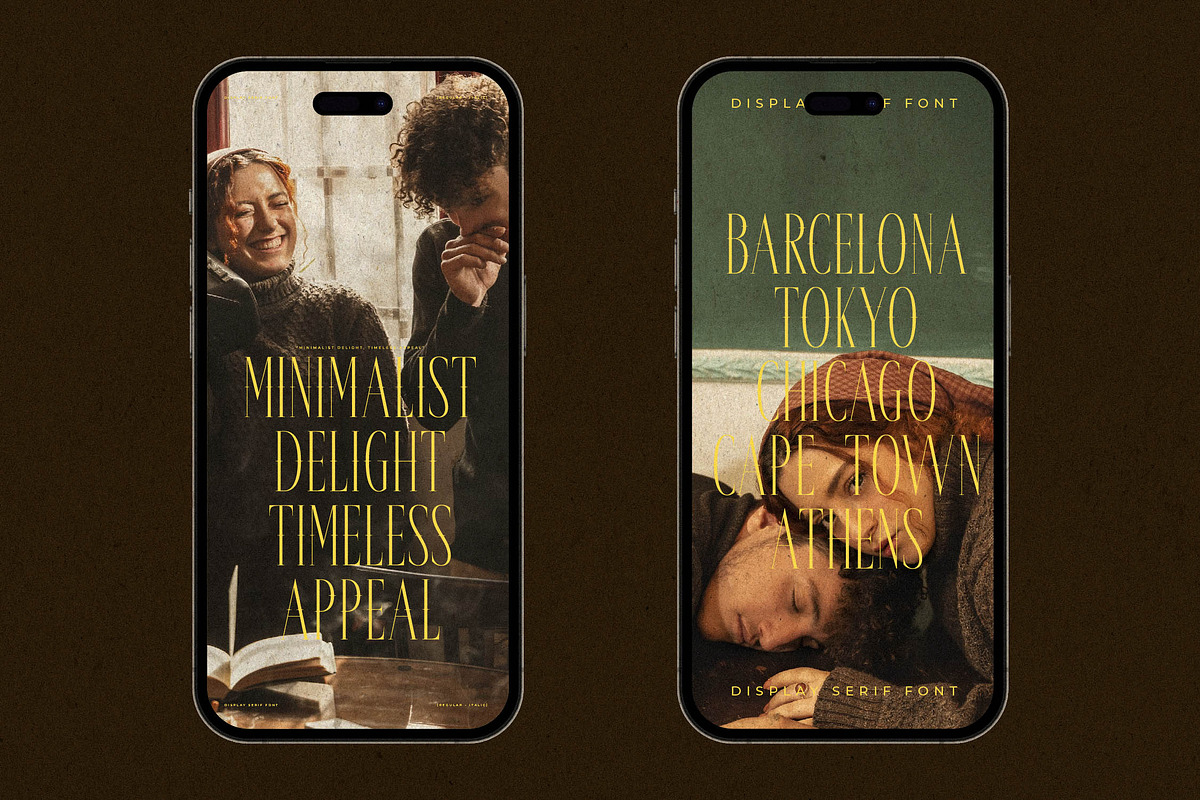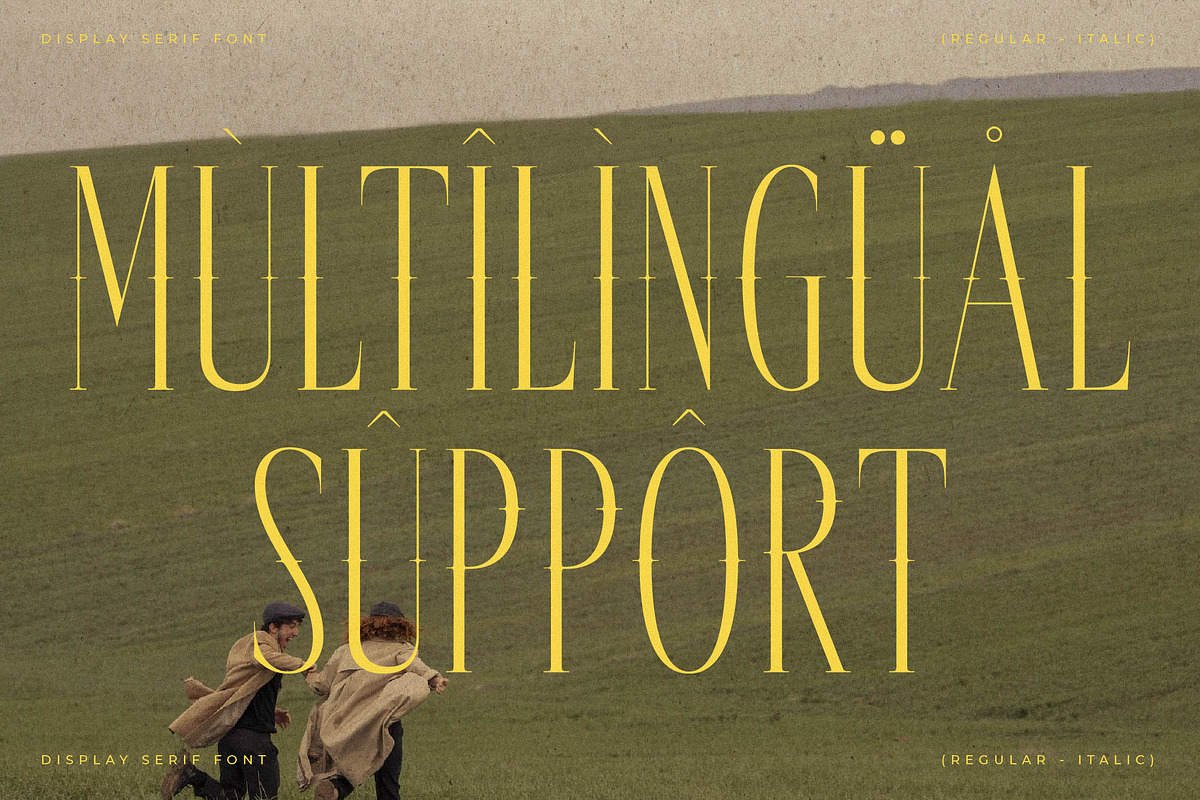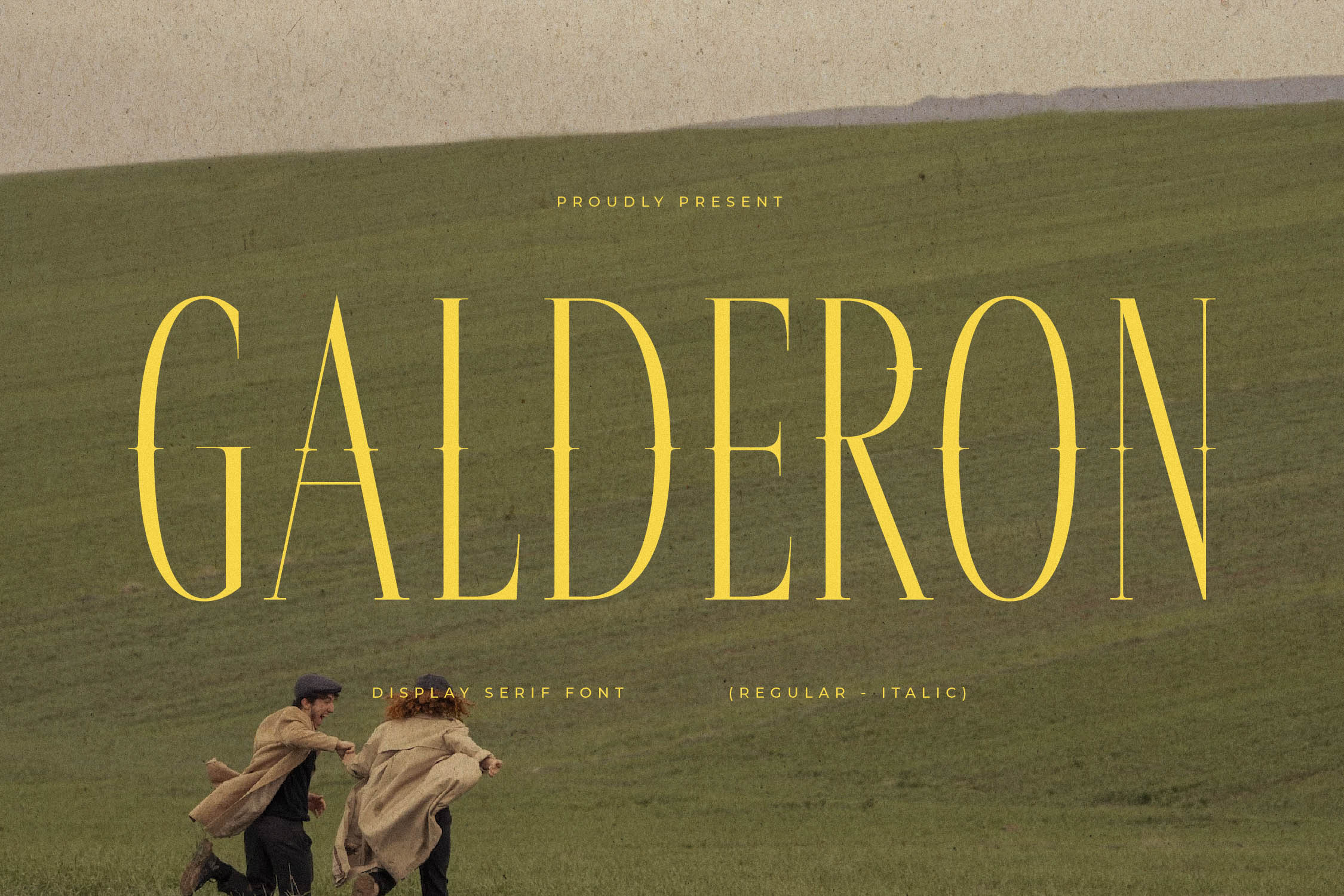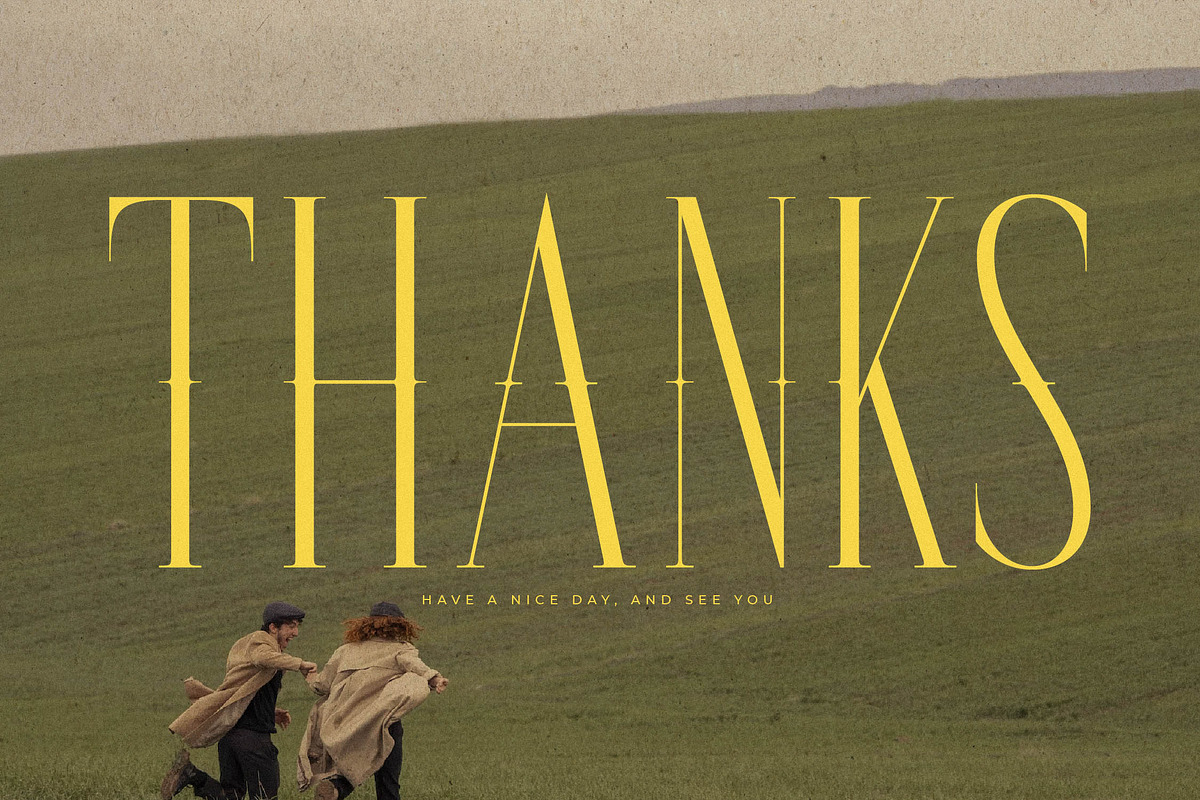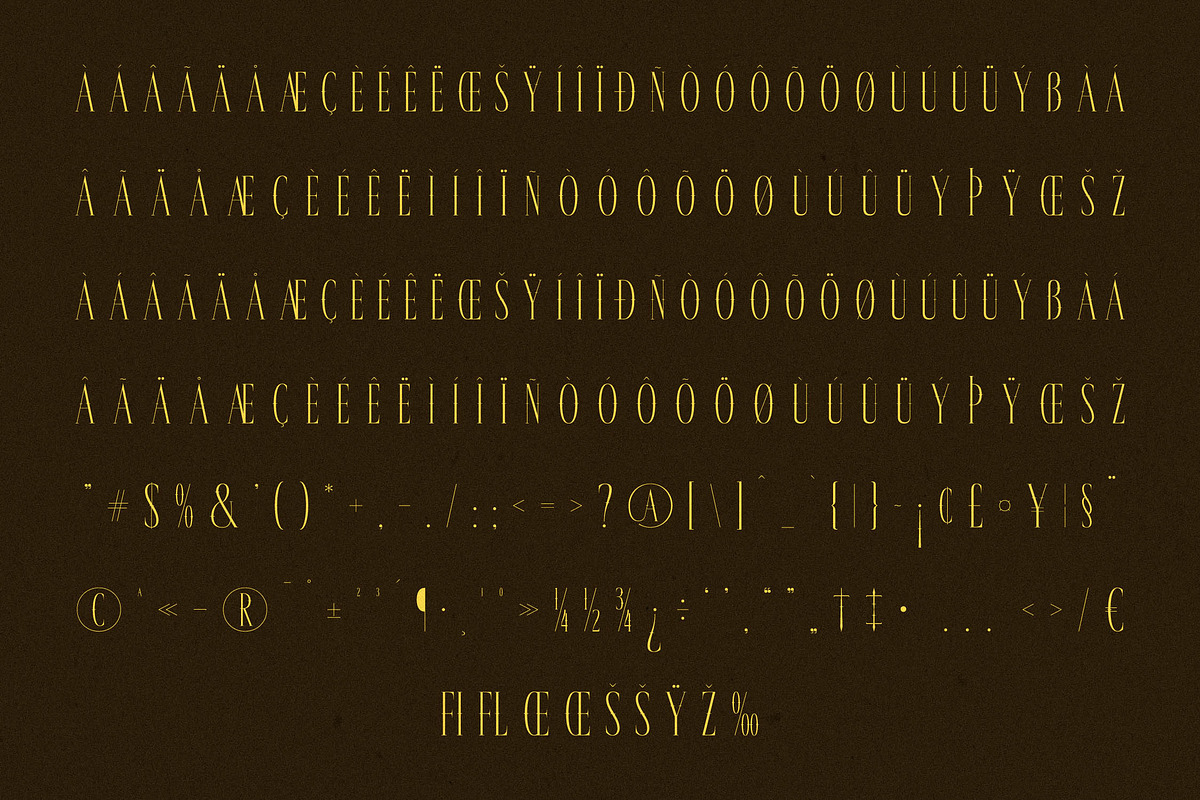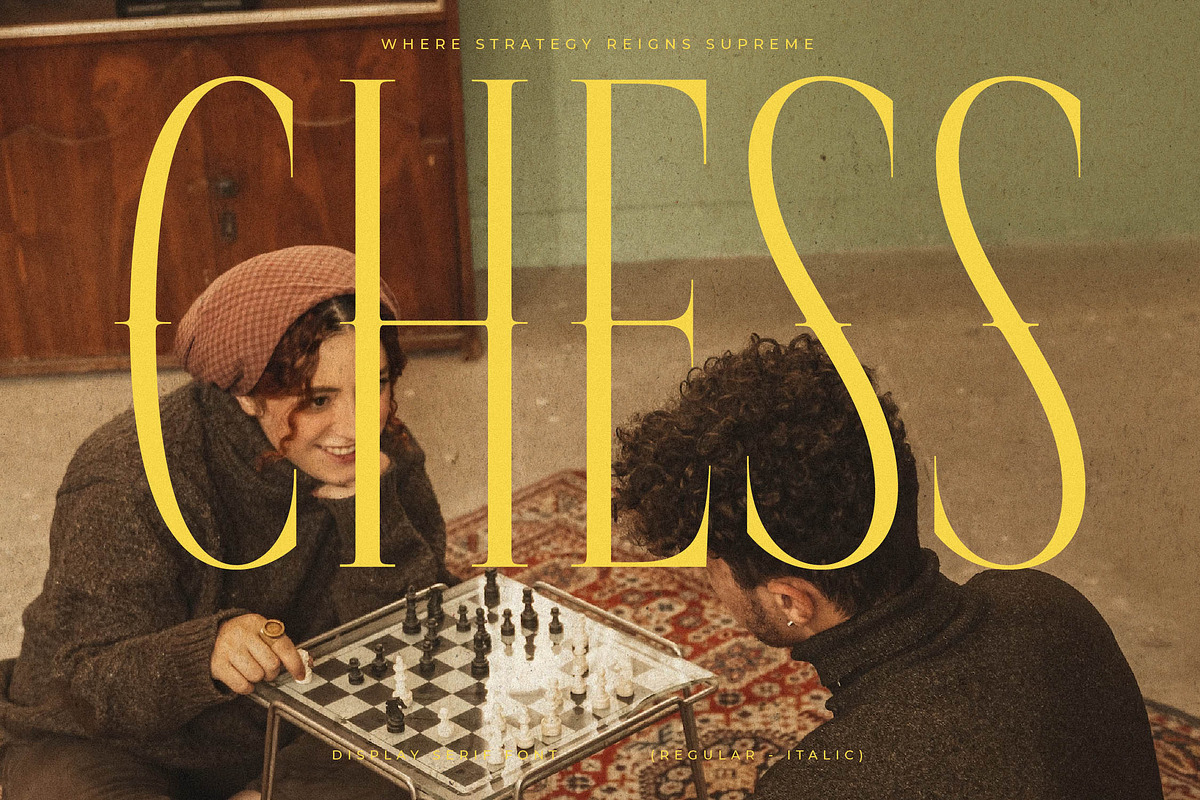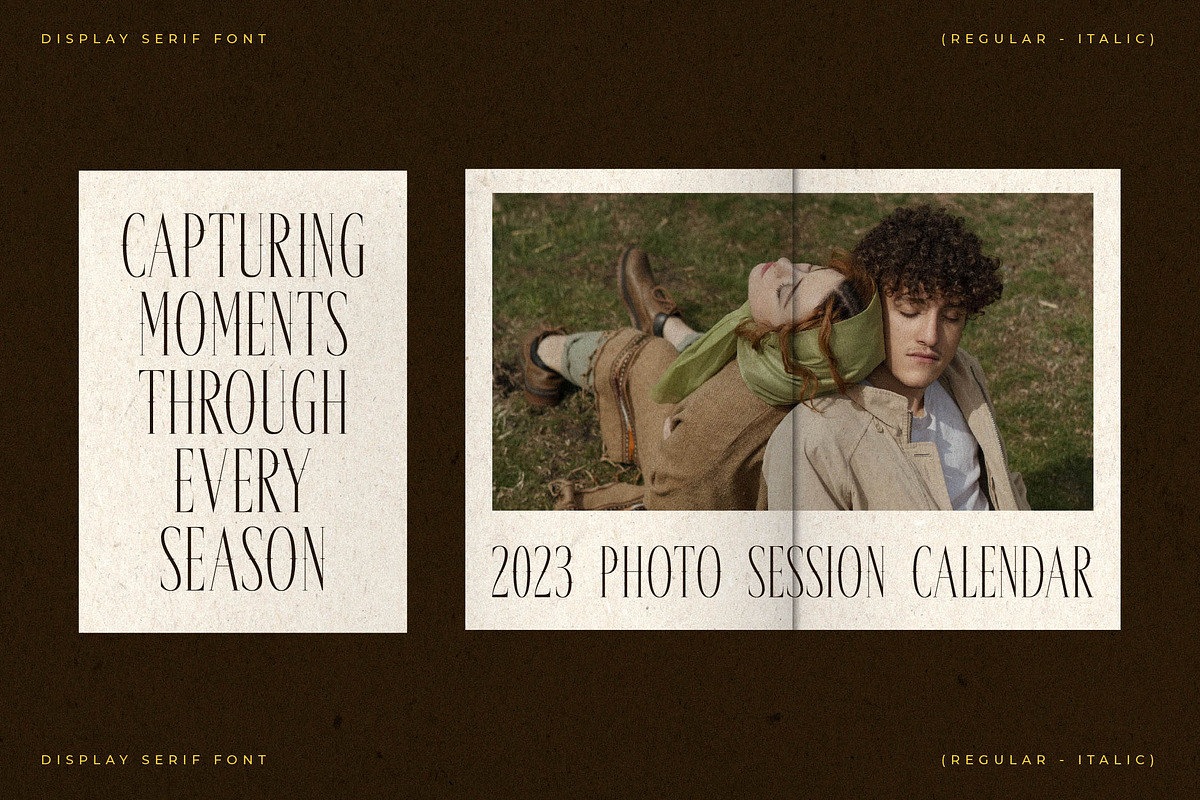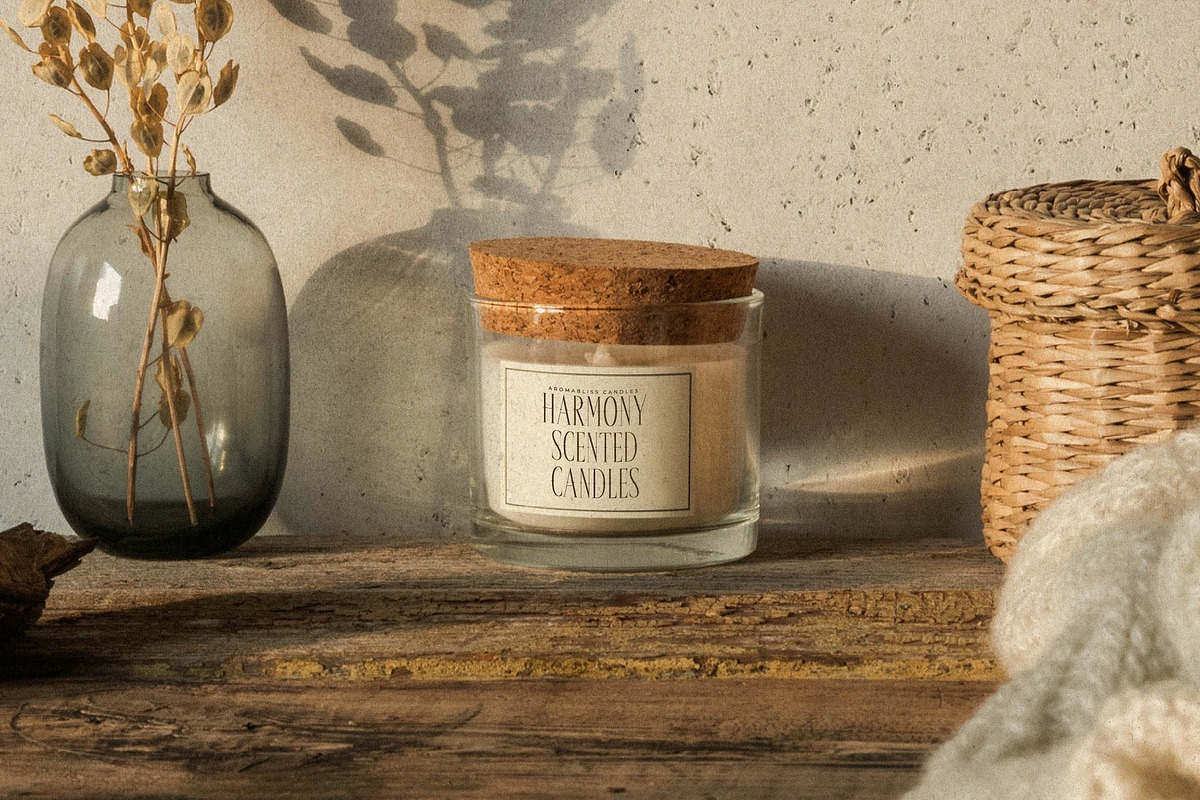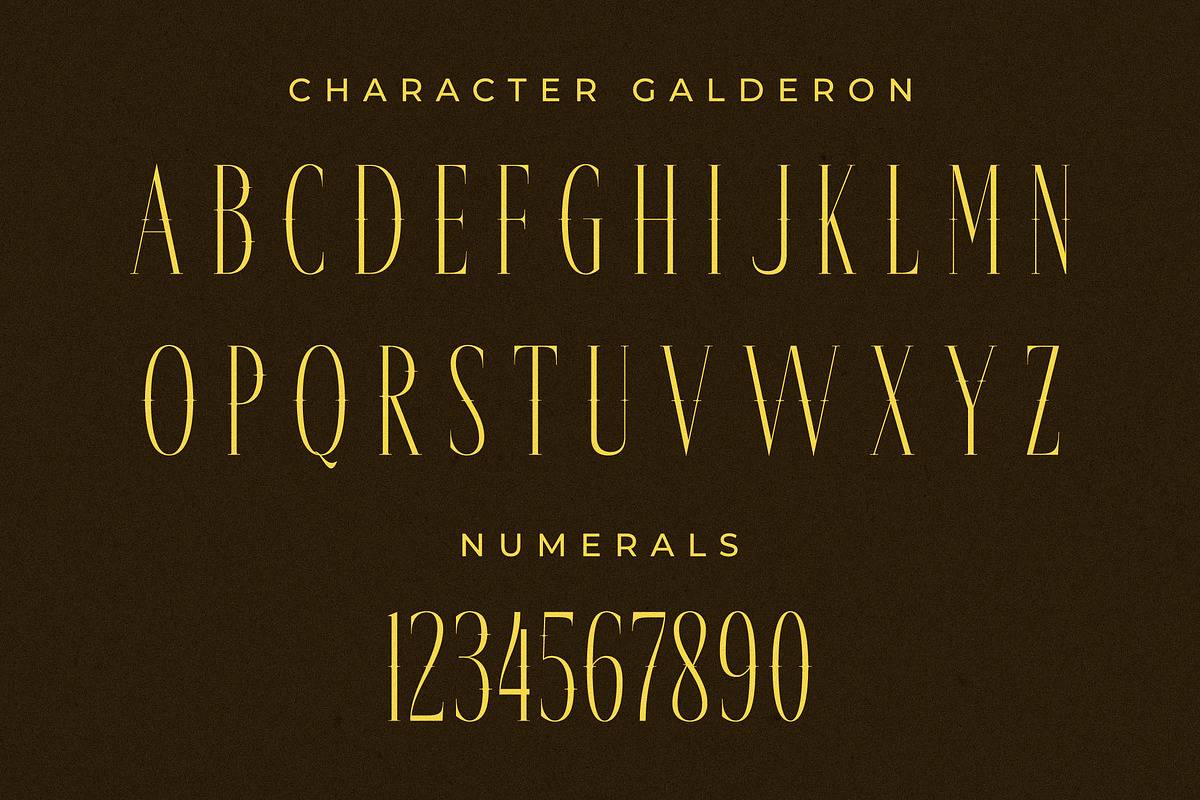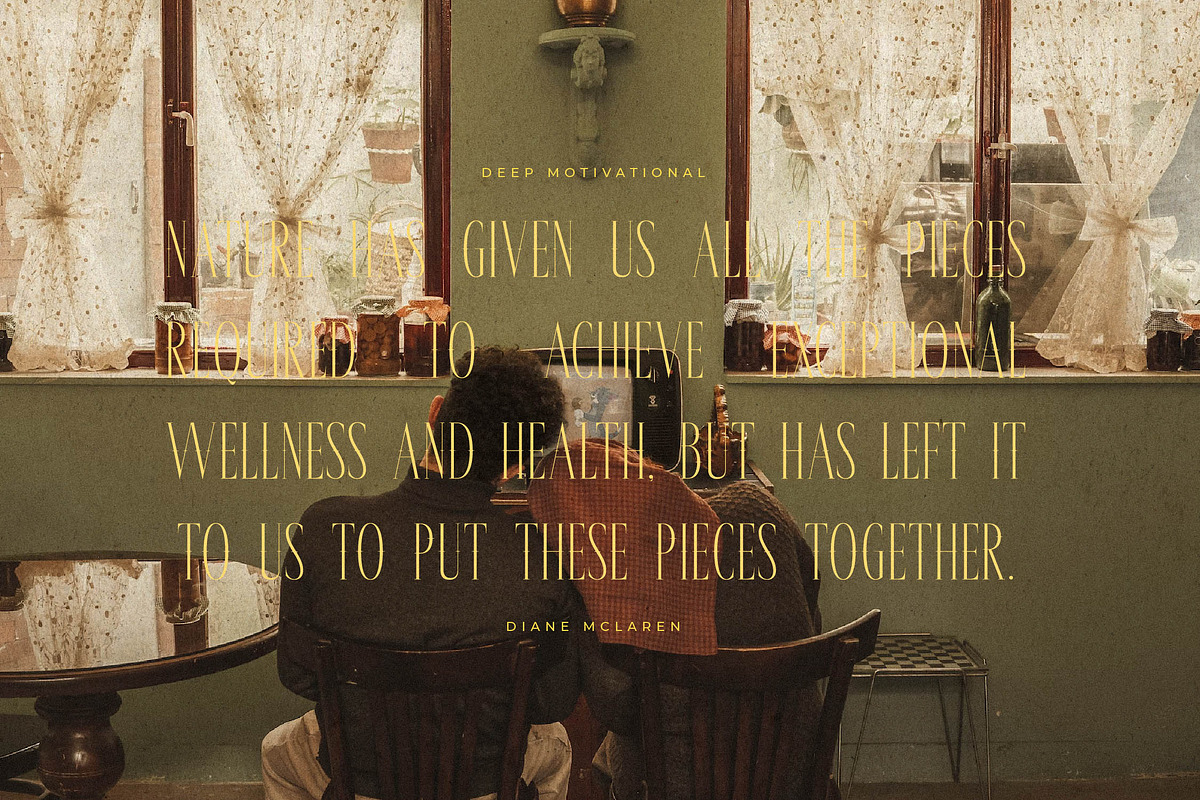
Galderon A Display Serif Font
Proudly present Galderon Typeface , created by Storytype, A serif modern and classic typeface that has own unique style & modern look. This typeface is perfect for an elegant & luxury logo, book or movie title design, fashion brand, magazine, clothes, lettering, quotes, and so much more.